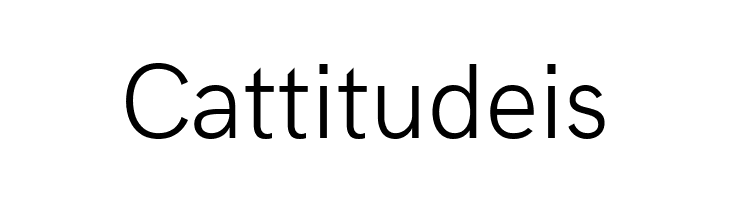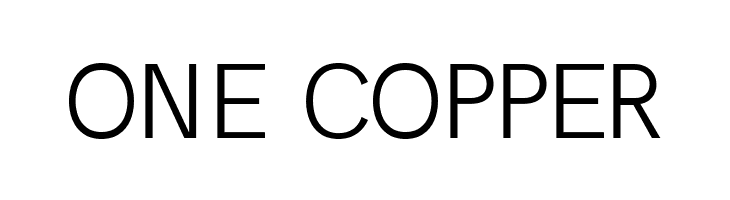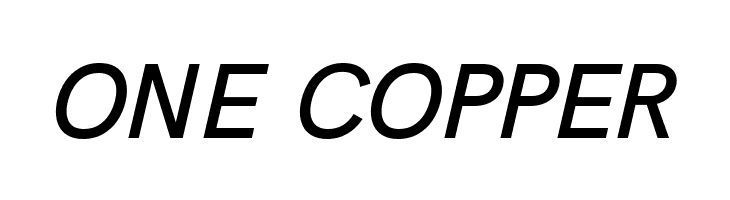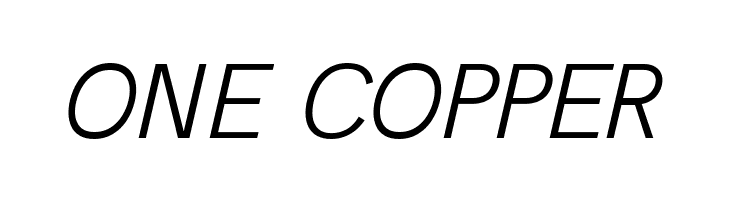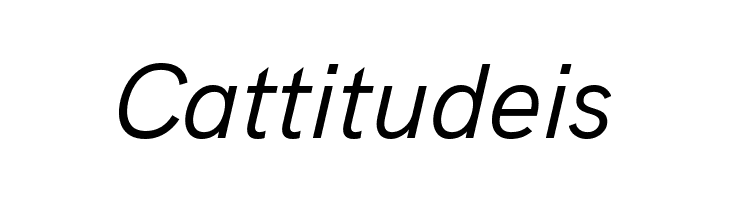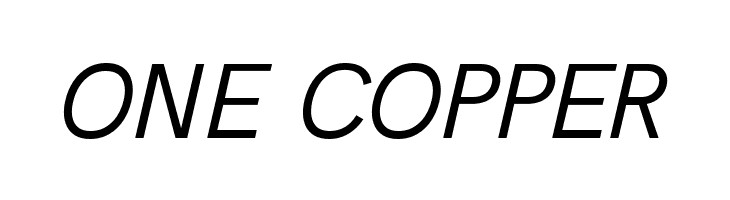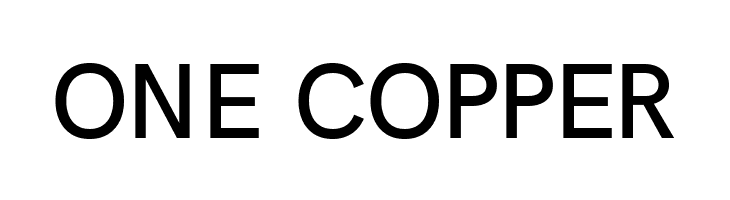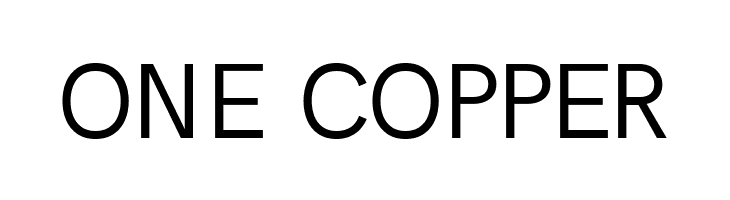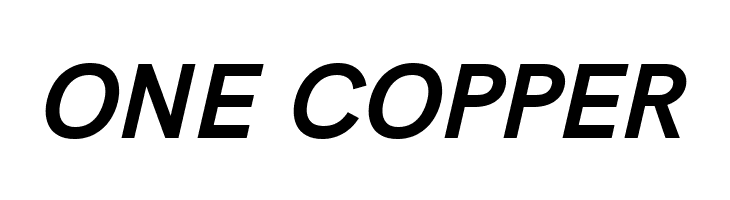
A clean and modern sans-serif font with uniform strokes and balanced spacing.
A bold, modern sans-serif font with excellent legibility and clean lines.
A bold, italic sans-serif font with a modern and dynamic style.
A modern sans-serif font with an italic slant, offering a clean and dynamic appearance.
A modern, light sans-serif font with clean lines and excellent readability.
A modern, light, italic sans-serif font with sleek and fluid character design.
A clean, modern sans-serif font with medium weight and excellent legibility.
A modern, italicized sans-serif font with clean lines and balanced proportions.
A clean, modern sans-serif font with a semi-bold weight and balanced design.
A modern, semi-bold italic sans-serif font with medium contrast and normal spacing.